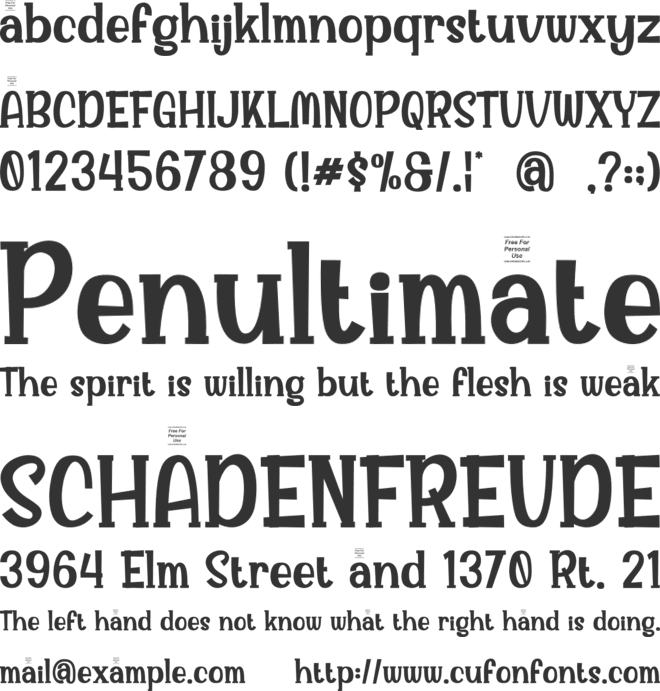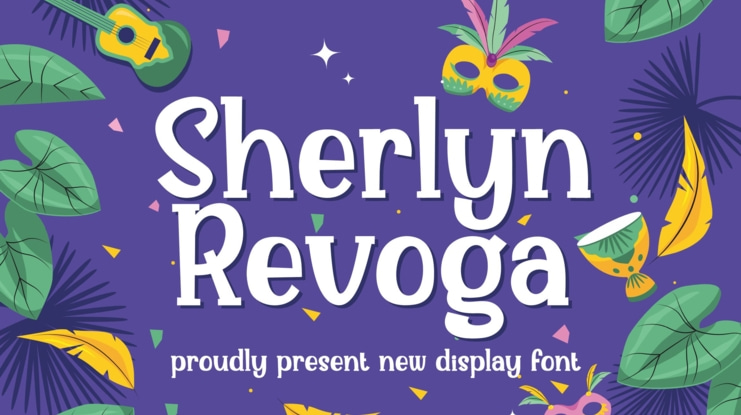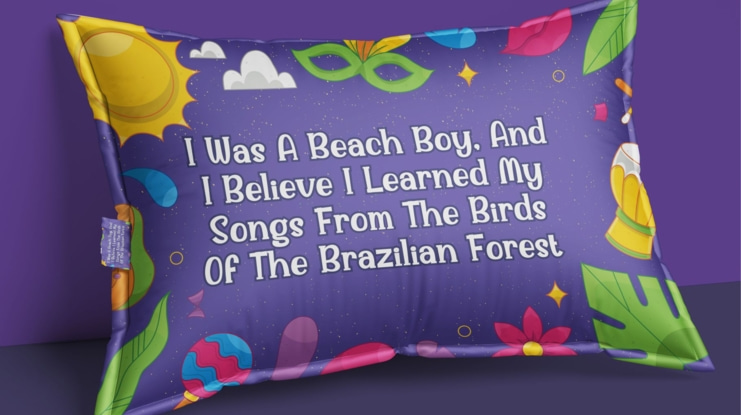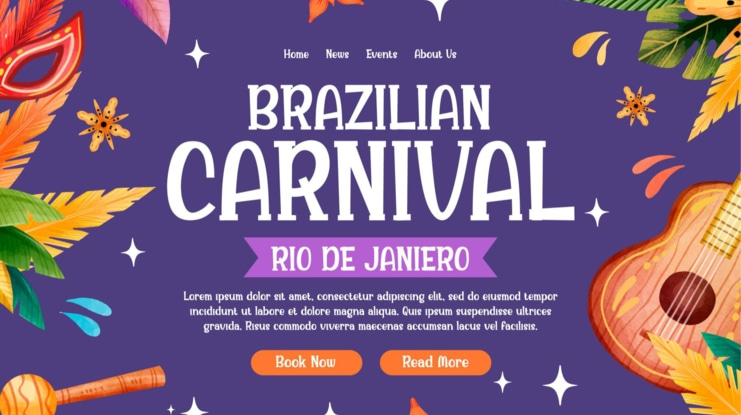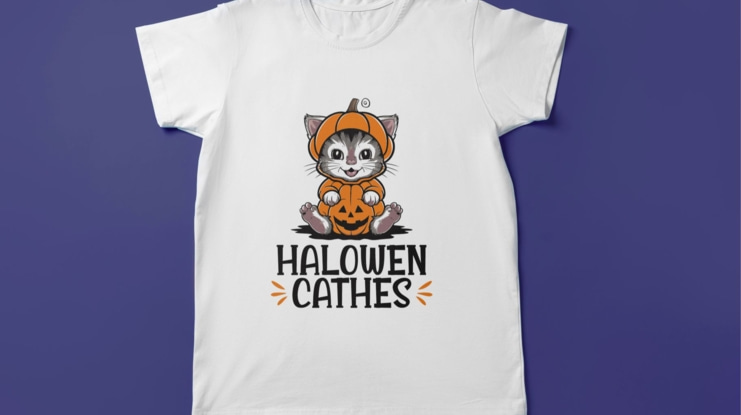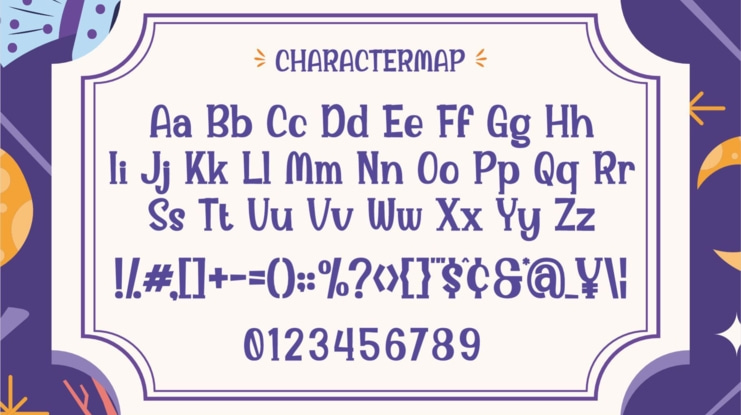
Sherlyn Revoga Font
Introducing Sherlyn Revoga The New Bloody Unique Display Font is a modern, trendy, bouncy and cute display font. It has a unique character. It is perfect to be combined with invitation card designs, company logos, movie titles, movie names, business cards, book titles, brand names and various other designs.
FEATURE
- Uppercase and lowercase
- Numbering and Punctuation